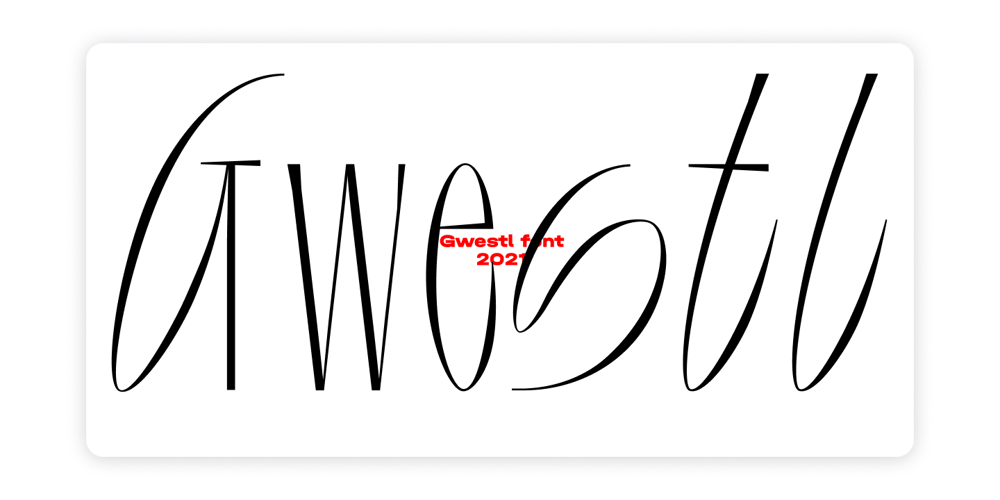
Gwestl Font Family was designed by Victor Pesotsky and published by Pesotsky Victor. Gwestl contains 1 styles and family package options. Gwestl font is a modern version of the graceful antiqua. The serifs are kept to a minimum, and the sprawling loops make the font bright and memorable. In mood, it is a cheerful and grazie typeface. It is suitable for branding and web-sites. The font has both uppercase and lowercase letters, so it’s suitable for both catchy headlines and texts.Specifications: Basic Latin, Cyrillic, Diacritics 90+ languages Alternates signs Upper & lowercase